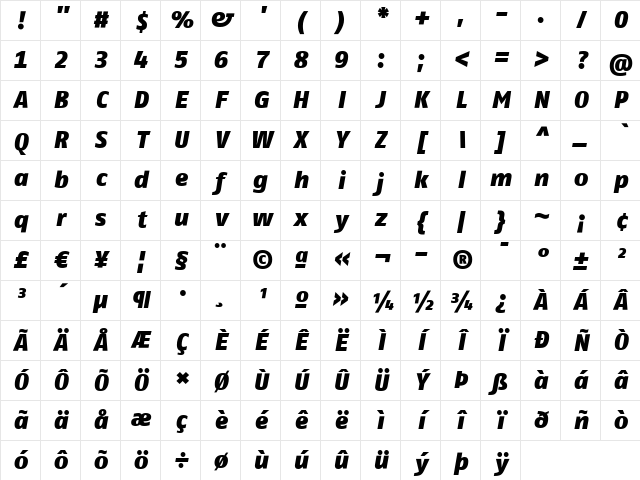
FagoNoTf ItalicHeavy
Style: ItalicHeavy
Foundry: Ole Schaefer, . Published by FontShop International for FontFont Release Fago is a trademark of FSI Fonts and Software GmbH
Design Context for FagoNoTf
FagoNoTf is a composed and adaptable typeface that performs quietly and consistently across a wide range of design contexts. The slanted form adds forward momentum and visual energy.
Who designed the FagoNoTf ItalicHeavy font?